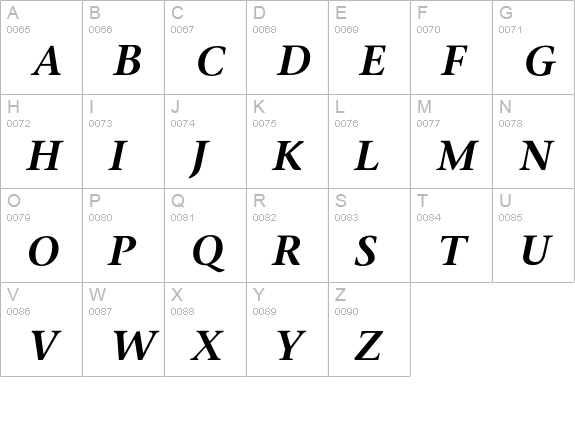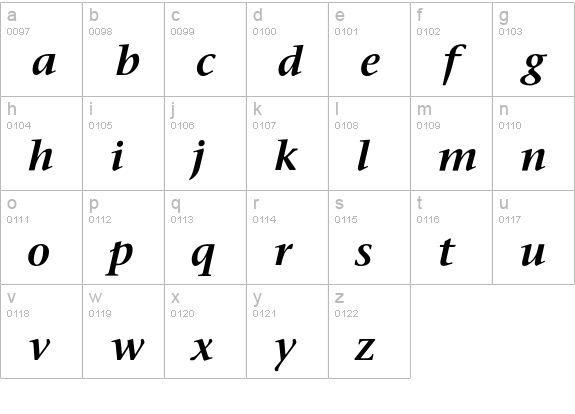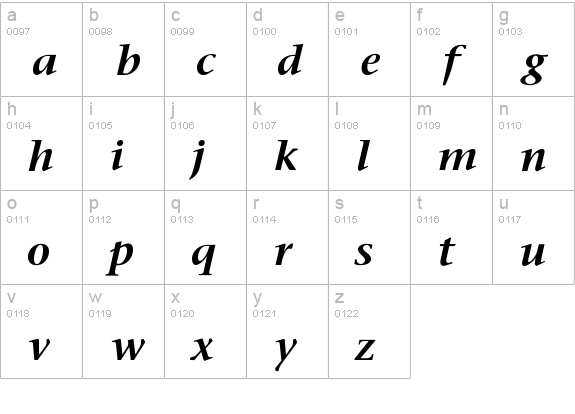
StoneSerifSemiBoldItalic Font Details
StoneSerifSemiBoldItalic is a visually striking and versatile font that exudes elegance and sophistication. Its bold and italic design commands attention while maintaining a sense of refinement. This font is perfect for adding a touch of class to any design project, whether it be for branding, editorial work, or signage. What sets StoneSerifSemiBoldItalic apart is not only its aesthetic appeal but also its accessibility. This premium font is available for free download at FontsMarket.com, making it a valuable asset for designers, creatives, and anyone looking to elevate their projects without breaking the bank. With its timeless style and effortless readability, StoneSerifSemiBoldItalic is sure to make a lasting impression in any context.